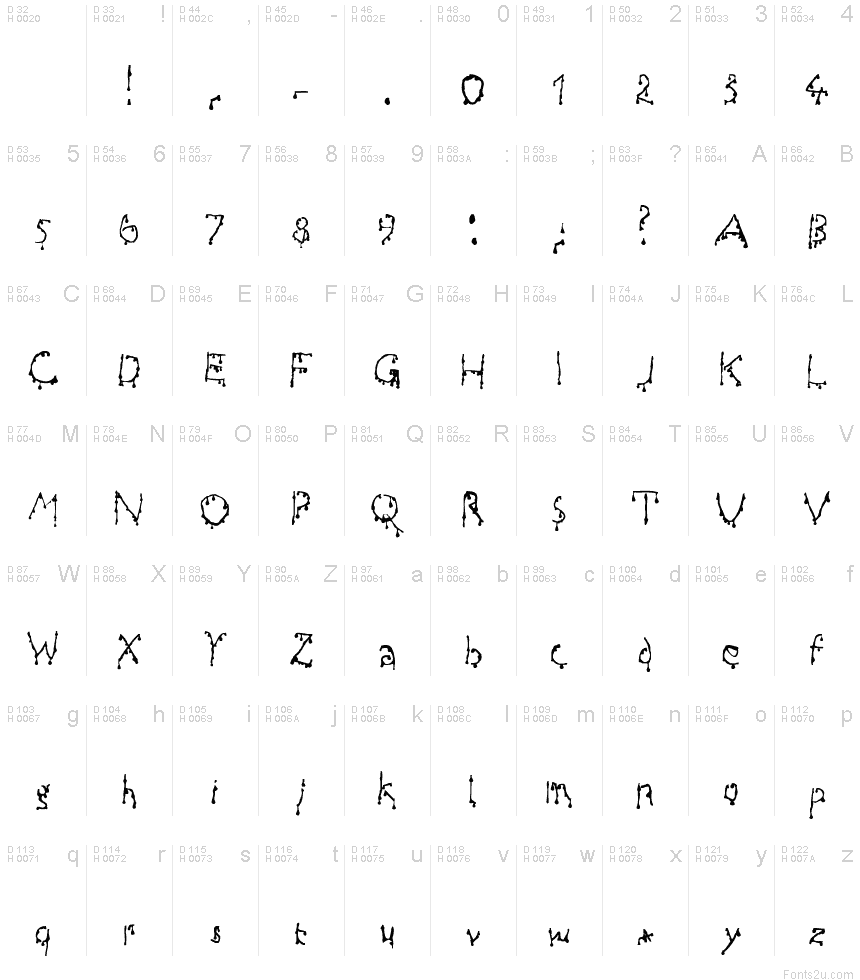
Draculas by M. Klein is a free horror display font built from thin, uneven strokes and swollen, ink-like knots. The letters look hand-drawn, with wavering outlines and abrupt changes in width that suggest wet paint or creeping vines. Small drops hang from several forms.
Gothic monsters, haunted houses, and comic-book scares are its clearest territory, making it useful for Halloween posters and game graphics. Its loose, blotted shapes can also turn confectionery packaging or party invitations into part of the joke. The playful menace is aimed more at children, novelty brands, and lighthearted horror fans than grim adult terror.